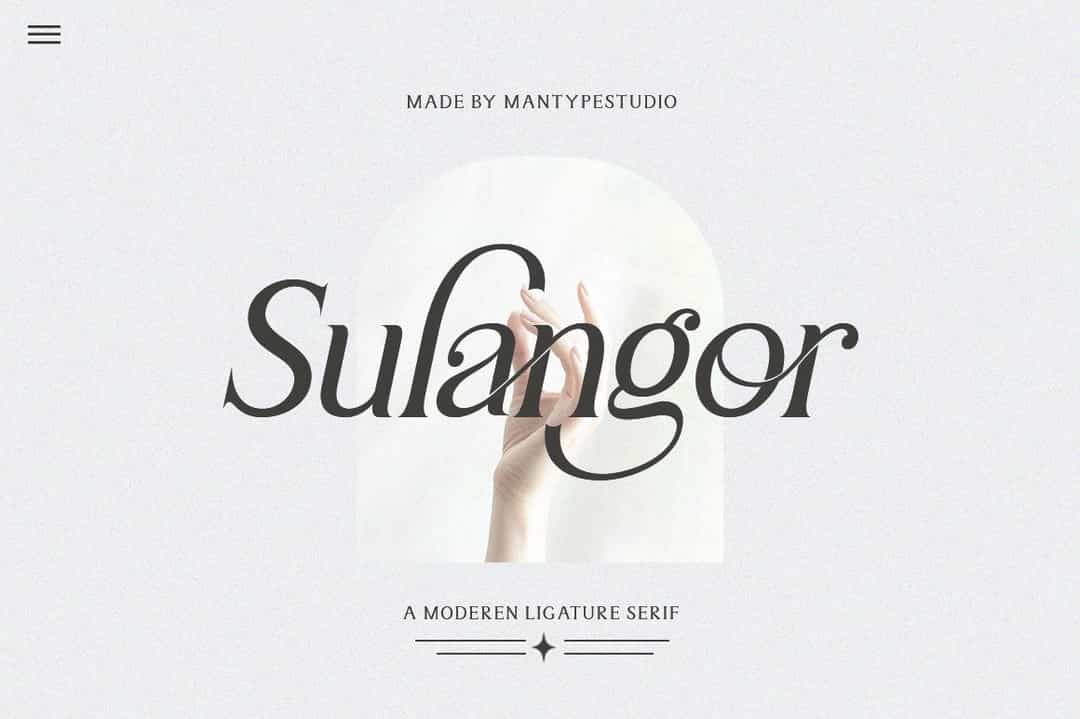
Sulangor can be described as an elegant and sophisticated serif typeface featuring letters that move and twist, creating distinctive typographic styles that are stunning in appearance. When added to designs, you will be thrilled by what emerges! You will surely be impressed!